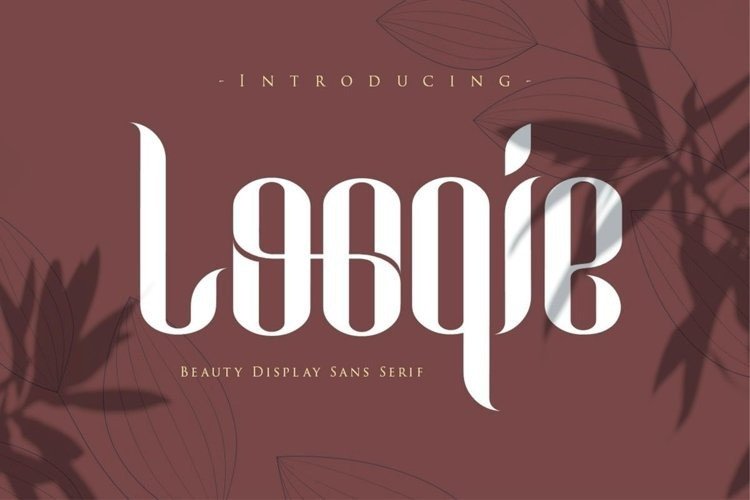
Looqie Font
looqie Font
Looqie Display Font is a bold sans serif display font created by Gilar Studio with beautiful ligatures and multilingual support. Looqie Font will work perfectly for fashion, e-commerce brands, trend blogs, wedding boutiques or any business that wants to appear upscale. Flip through all the previews and get inspired like I was while creating this font
Looqie also Suitable for Logo, greeting cards, quotes, posters, branding, name card, stationary, design title, blog header, art quote, modern envelope, book design any DIY project to make your art/design project look pretty and trendy.